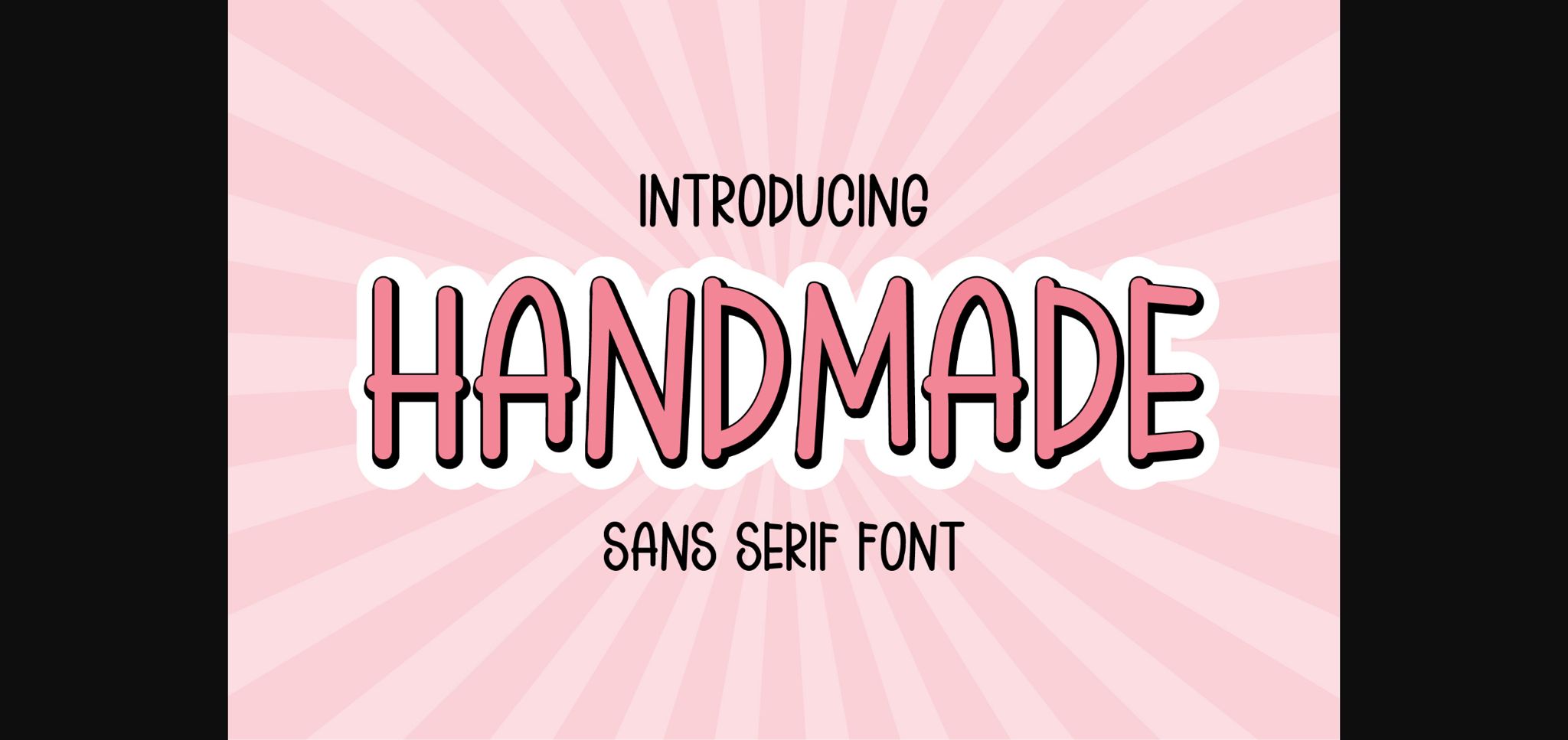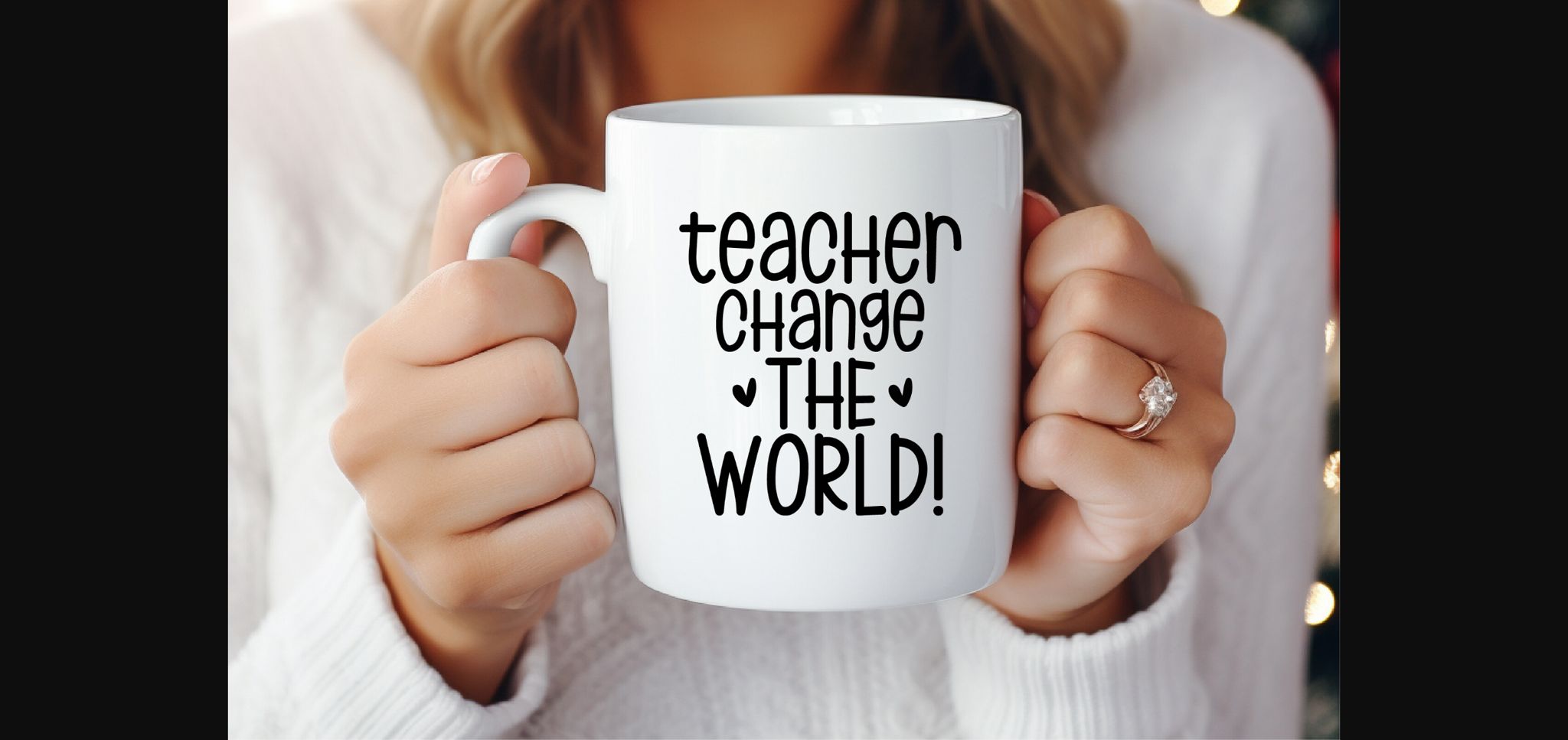
Handmade is a cute and modern sans serif font. It would be an amazing addition to your projects and designs.
Add it to your adroit ideas, and enjoy the results! Perfect for use in social media posts, product packaging, t-shirt design, retro, logo design, crafts, digital design, presentations, and others.